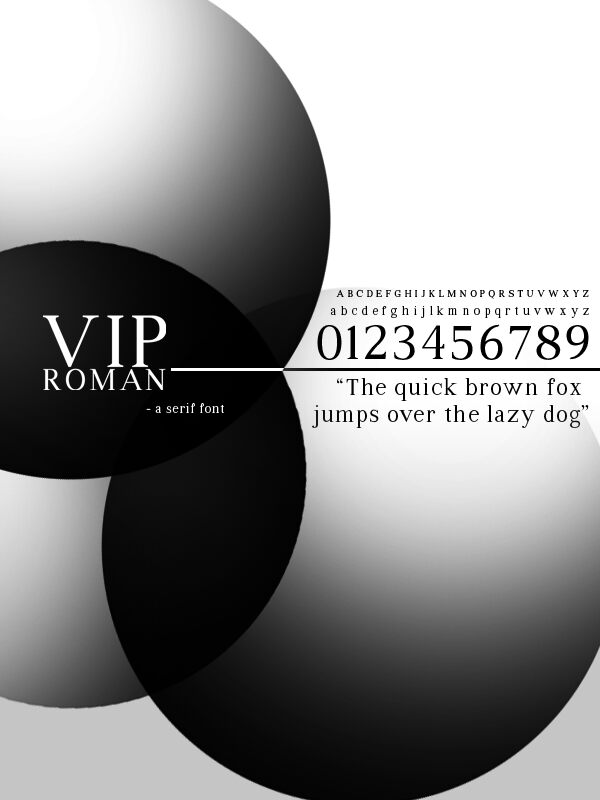
VIP Roman by André Noboru Uenojo of PYRS Fontlab Ltd. is a free high-contrast serif font with the poised formality of modern display types. Its tall letters and fine hairlines create an elegant silhouette.
Luxury fashion labels and boutique hospitality brands could use its stately proportions for packaging, signage, and event invitations, especially when a refined editorial note is wanted. The pronounced shift between broad curves and razor-thin strokes also suits high-end magazine covers and beauty campaigns, where the lettering can echo the clean lines of product photography and formal studio portraiture rather than serving as a neutral caption element alone.
VIP Roman